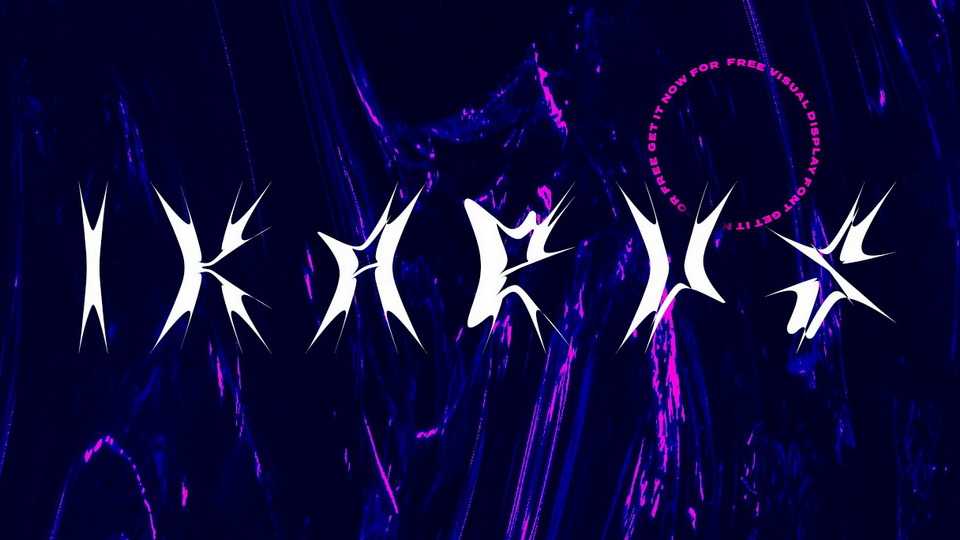
Download Ikarus font, a very visual display typeface with unique abstract shapes of characters. Ikarus font is perfect for posters and modern artworks.
Designer: Luis H. J. Rapp